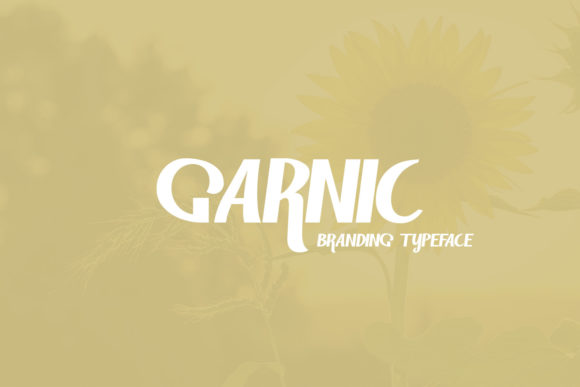
Introducing Garnic Font, a display font that's as captivating as its name suggests! Whether you're a graphic designer, marketer, or simply someone who appreciates striking typography, Garnic is sure to leave an indelible mark on your creative projects.
Immerse yourself in the realm of imagination and let Garnic's distinctive characters dance across your designs. Its carefully crafted glyphs possess an undeniable charm, capable of transforming ordinary words into captivating expressions. Picture your designs adorned with Garnic's elegant curves and sharp angles, commanding attention and leaving a lasting impression.
Garnic's versatility knows no bounds. Whether you're crafting logos, posters, social media graphics, or eye-catching headlines, this font has the charisma to elevate your creations. Its unique personality shines through in any context, making it a perfect choice for adding a touch of sophistication and individuality to your projects.
The beauty of Garnic lies in its ability to effortlessly convey emotions and messages. Its bold strokes and dynamic shapes create a visual symphony that speaks louder than words. Let Garnic be your artistic ally, helping you communicate your ideas with flair and impact.